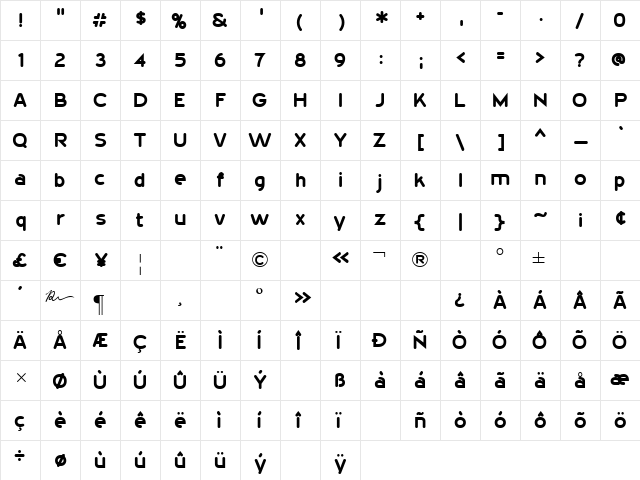
20th Century Font Regular
Design Context for 20th Century Font Typeface
20th Century Font offers clean, dependable letterforms without strong stylistic allegiance, making it a practical choice for designers who need flexibility.